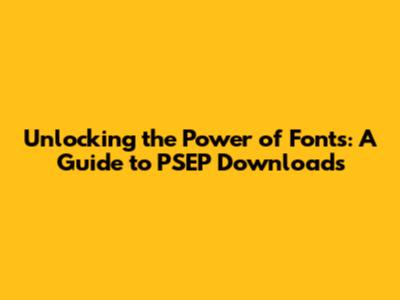
- Google Fonts: This is a fantastic resource, especially for web fonts. You can easily embed these fonts into your website and they're completely free to use! The Google Fonts library is user-friendly and packed with a wide range of options, from classic serifs and sans-serifs to modern, display fonts. Google Fonts is a great way to start if you want an easy and reliable source for web fonts.
- Font Squirrel: This site offers a collection of free fonts that are hand-picked. Font Squirrel has a vast range of high-quality fonts and licenses that are suitable for both commercial and personal use. They also have an easy-to-use interface, which makes it easy to navigate their collection. This is perfect for those who are looking for fonts for their projects.
- DaFont: DaFont is another popular choice, offering a massive library of fonts. While many fonts are free, always check the license, as some may be for personal use only. There is a lot to choose from, from basic to unique styles, with different fonts to meet different needs. They have categories such as "handwritten", "script", or "techno", which helps narrow the search down.
- Creative Market and Envato Elements: If you're looking for premium fonts, these marketplaces are goldmines. You'll find a wide variety of professionally designed fonts, often with more extensive licensing options. Consider checking out these platforms when looking for high-quality fonts for your projects. You can browse through a variety of fonts from different creators and choose the ones that are perfect for your project.
- Adobe Fonts: If you are an Adobe Creative Cloud subscriber, you'll get access to Adobe Fonts. This is a massive library of fonts that are included with your subscription, making it a great value. Adobe Fonts is seamlessly integrated with Adobe's creative software, which makes it easy to use the fonts in your designs. From Adobe Fonts, you can find a suitable font and use it in your projects.
Hey guys! Ever wondered how to snag those awesome fonts you see everywhere? Well, today we're diving deep into the world of fonts, specifically focusing on "PSEP Downloads" and all the goodies that come with it. We'll explore what these downloads are, why they're important, and how you can get your hands on them, all while making sure your website or project looks its absolute best. So, buckle up, because we're about to embark on a font-tastic journey!
Understanding the Basics: What are Fonts and Why Do They Matter?
Before we jump into the nitty-gritty of PSEP Downloads, let's quickly cover the fundamentals. Fonts, also known as typefaces, are the visual representation of text. They are the building blocks of communication, influencing how we perceive information and interact with content. Think about it: a playful, handwritten font can instantly make a website feel friendly and approachable, while a clean, modern font conveys professionalism and sophistication. They are a crucial aspect of visual design and play a pivotal role in creating a brand identity. It's safe to say that fonts are more than just text; they are a powerful tool that impacts the way your content is received.
Choosing the right font can be the difference between a successful project and one that falls flat. Consider the mood you want to evoke and the audience you're trying to reach. A comic book-style font might be great for a children's website but completely inappropriate for a legal document. Finding the right balance will make your design truly shine. The use of fonts helps to establish a clear visual hierarchy and create an organized reading experience. When used correctly, fonts help to direct the reader's eye, making the content more accessible and user-friendly.
When creating visually appealing and successful projects, you must consider the importance of selecting the proper fonts. Font selection is not just an aesthetic choice; it's a strategic decision that affects usability and accessibility. Poorly chosen fonts can make text difficult to read, leading to a negative user experience. Fonts convey emotions. They are essential to setting the tone of your design and communicating your message. A great font can immediately grab a viewer's attention.